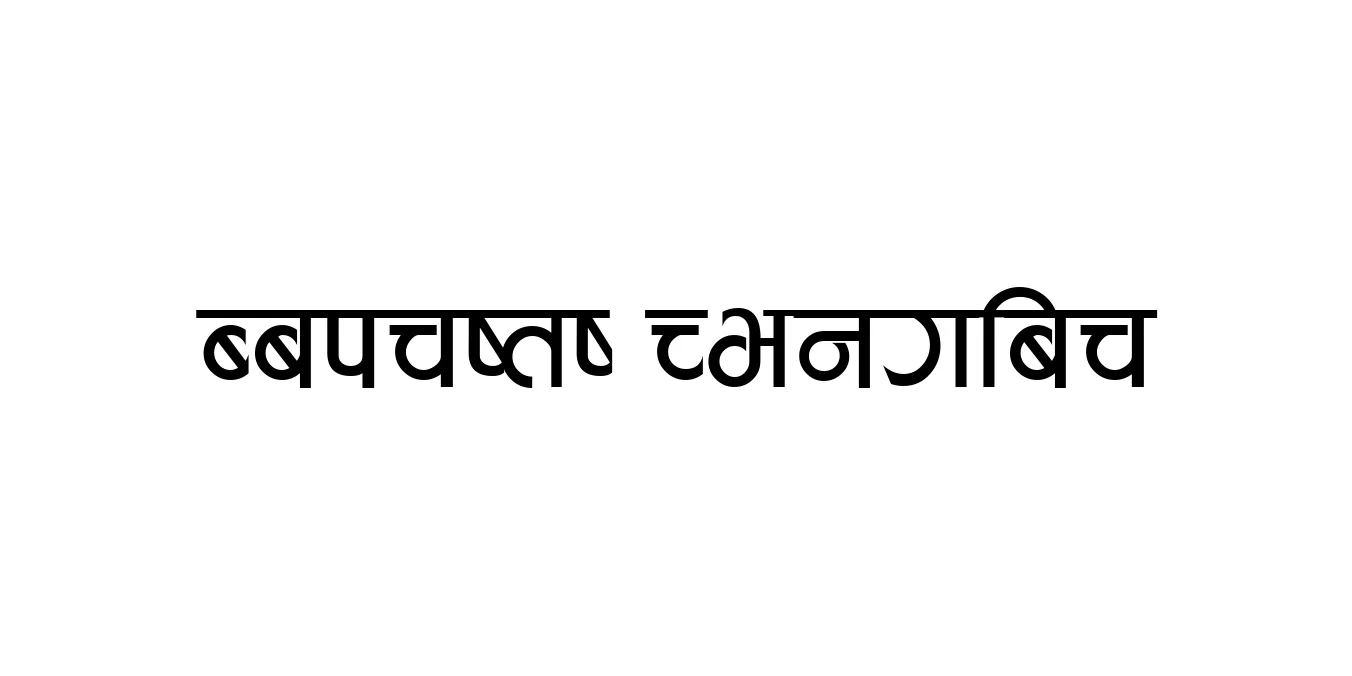
Aakriti Regular
Designed by Unknown / Indian Type Foundry
| Category | Devanagari / Indic Script |
| Similar Fonts | Kruti Dev, Mangal, Aparajita, Kokila |
Aakriti Regular is a prominent Devanagari typeface that is widely recognized for its clean, traditional, and highly legible design. Developed to cater to the specific needs of Indic typography, this font balances classic calligraphic strokes with modern digital clarity. It is particularly valued in the Indian subcontinent for its ability to handle complex ligatures and matras with precision, making it a reliable choice for regional publishing and formal documentation.
Over the years, Aakriti Regular has become a favorite among graphic designers for projects that require a touch of cultural heritage and authenticity. Its stroke weight is carefully optimized to maintain readability across various mediums, from high-resolution print materials to digital display screens. Whether used for body text in Hindi literature or as a primary font for administrative headers, Aakriti Regular remains a staple in the world of Devanagari script design.
Aakriti Regular Best Uses
Perfect for Hindi newspapers, magazines, and book publishing where legibility is paramount.
Ideal for logos and promotional materials for Indian festivals, restaurants, and traditional products.
Highly effective for posters, invitation cards, and banners that require an authentic Indic feel.
Suitable for formal letters and administrative documents in regional languages.